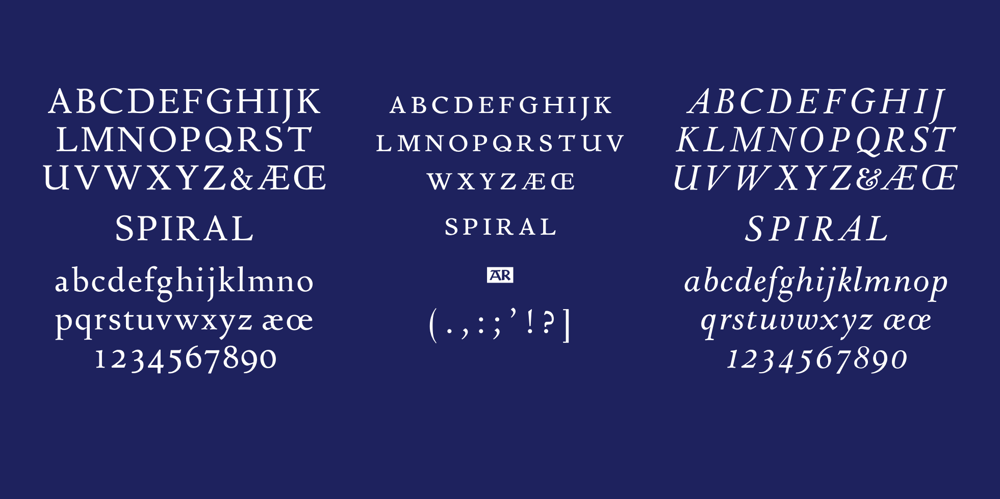
Spiral Font Family was designed by Joseph Blumenthal and published by ARTypes. Spiral contains 3 styles and family package options. Spiral is a digital transcription of a design by Joseph Blumenthal (1897-1990) which was hand-cut by Louis Hoell and cast by the Bauer foundry in 1930. The design with an italic added was later cut for Monotype and issued in 1936 as Emerson 320.